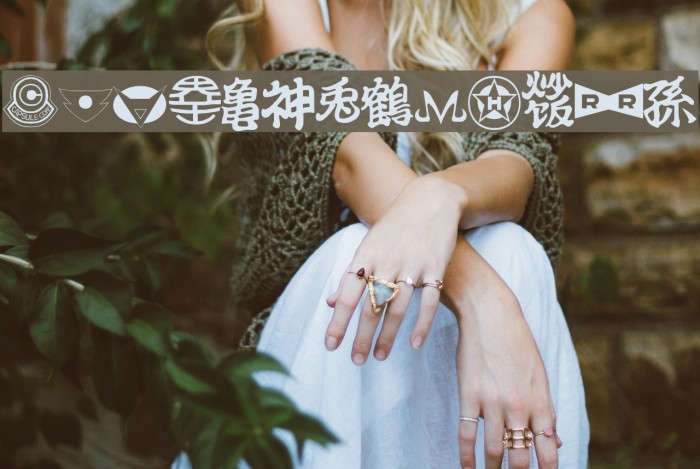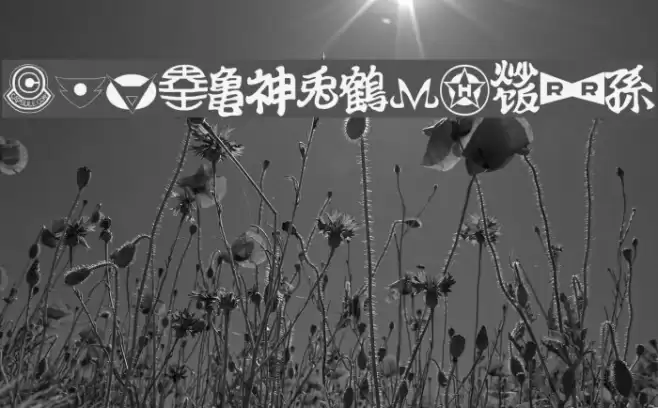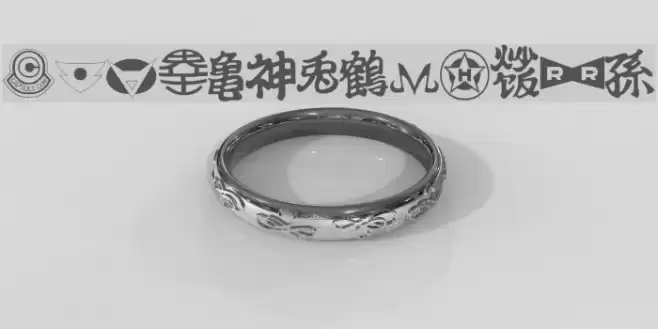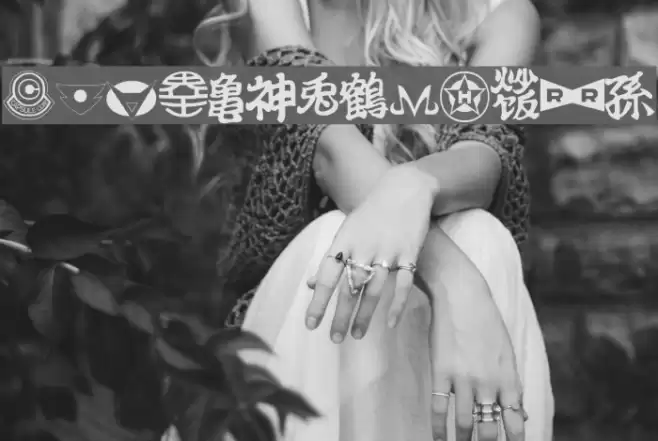
Dragon Ball Font
This collection of symbols and characters is inspired by the iconic Dragon Ball series, featuring a variety of emblems and kanji that are recognizable to fans. The designs include the Capsule Corp logo, various martial arts symbols, and other thematic elements from the series. Each symbol is bold and distinct, capturing the adventurous and dynamic essence of the series. The characters and symbols are rendered in a style that is both decorative and illustrative, making them suitable for creative projects that aim to evoke the spirit of the Dragon Ball universe.
A collection of bold, decorative symbols inspired by the Dragon Ball series.
- Proposed Projects: Ideal for fan art, themed merchandise, cosplay accessories, and creative projects celebrating the Dragon Ball series.
- Use Case: Logos, Decorative elements